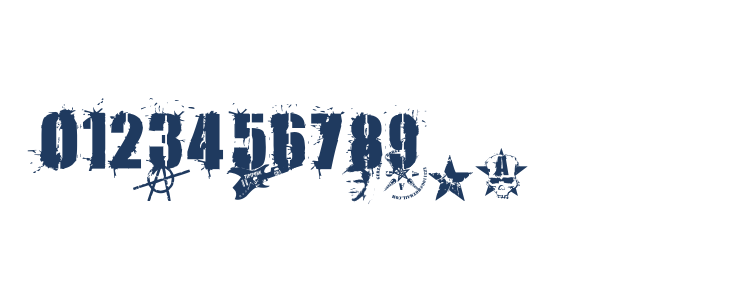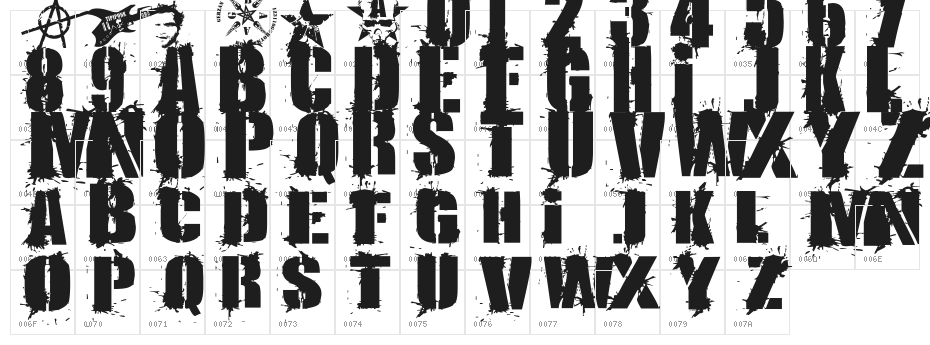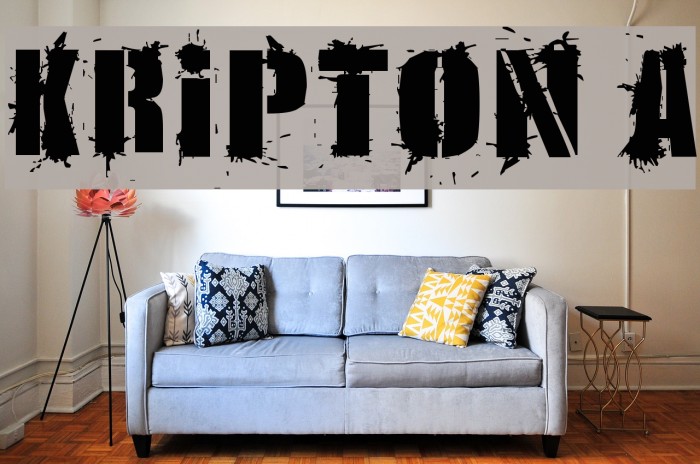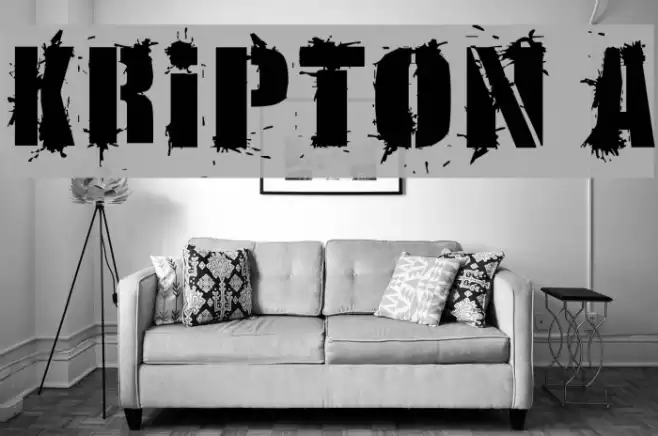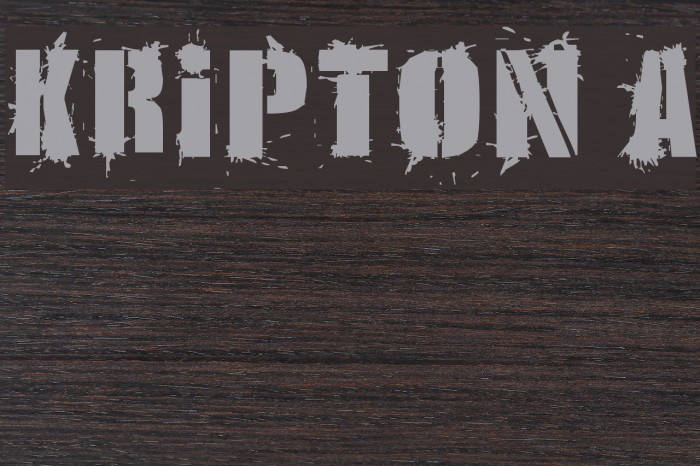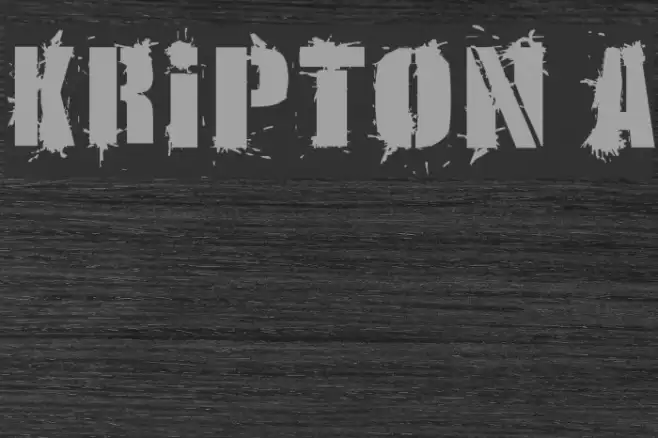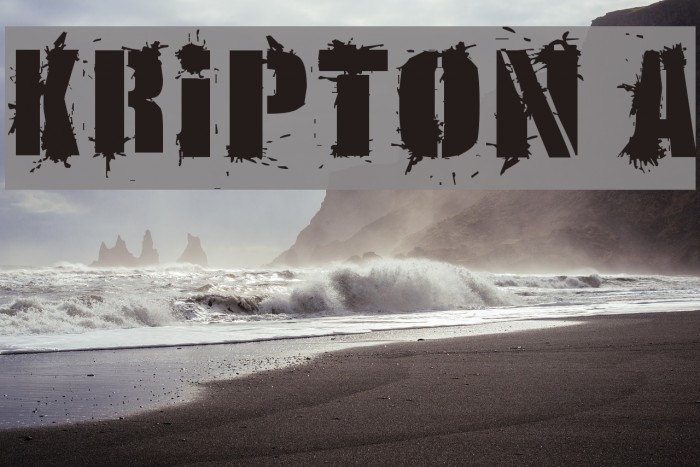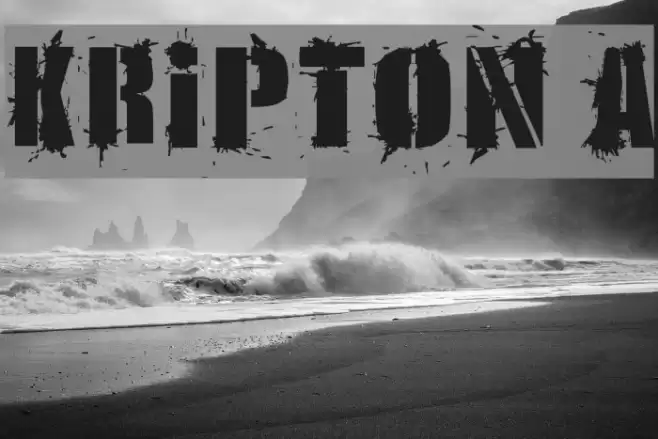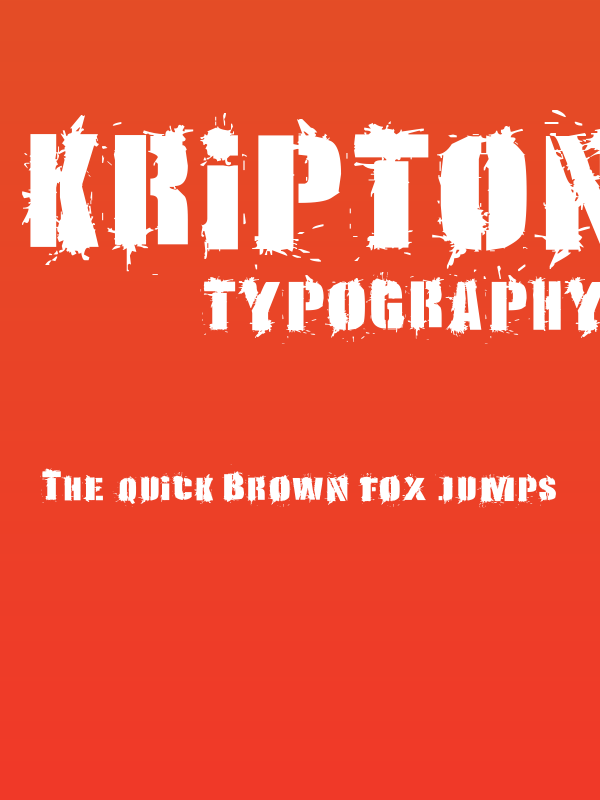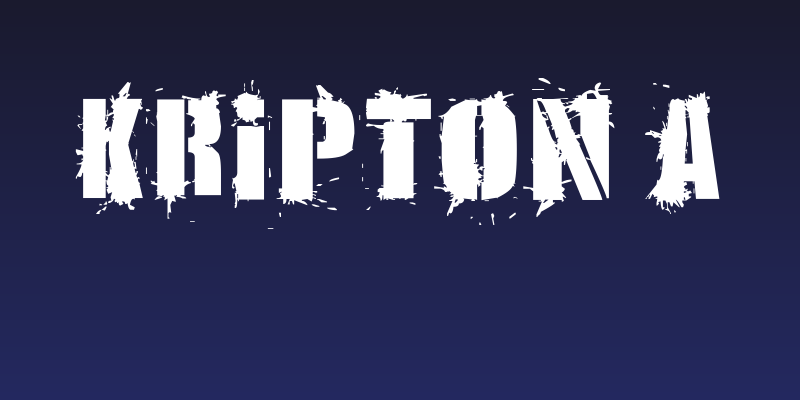
KRIPTON A Font
KRIPTON A Description
This font features a bold and distressed style, characterized by its rough, grungy texture and uneven edges. Each character appears as if it has been splattered with ink or paint, giving it a rebellious and edgy appearance. The uppercase letters are prominent and impactful, while the numbers maintain the same rugged aesthetic. The special characters, including symbols like the anarchy sign and a guitar, enhance its punk rock vibe. This font is ideal for projects that require a strong, unconventional look, such as music album covers, posters, or any design that aims to convey a sense of defiance and individuality.
| Overall Style | Grunge, Edgy, Rebellious |
| Proposed Projects | Music album covers, punk rock posters, edgy branding materials. |